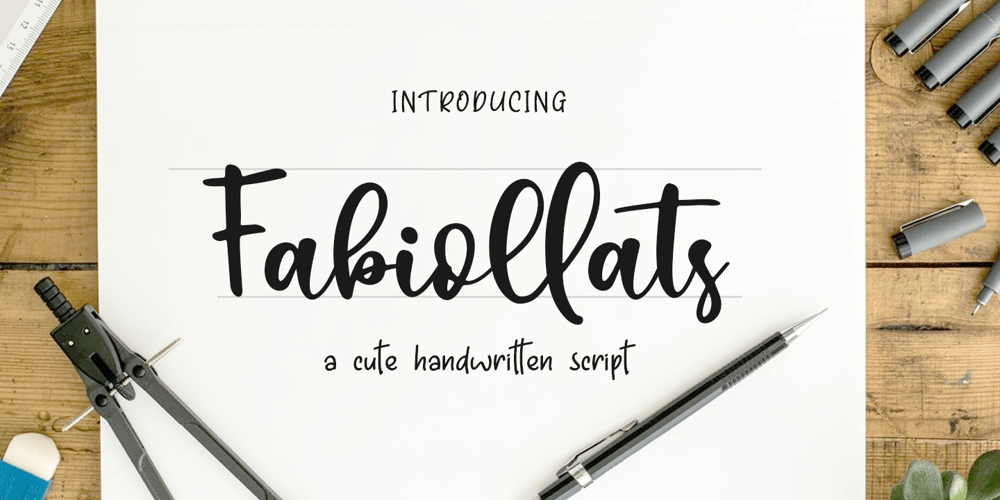
Fabiollats Font Family was designed by Sarwo Edhi Prayitno and published by Haksen. Fabiollats contains 1 styles and family package options. Fabiolla is a cute modern calligraphy style with upper and lowercase feel nice balanced. Its wide range of uppercase and lowercase alternates allow versatile design options and works perfectly for headlines, logos, posters, packaging, T-shirts, postcards and much more.This font works best in a program that supports OpenType features such as Adobe Indesign, Adobe Illustrator CC and CS, or Adobe Photoshop CC and CS also CorelDrawCheers!